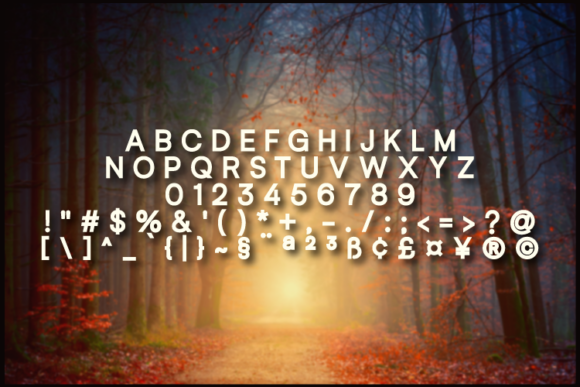
Introduction to Leonare Extra Black Font
Do you ever find yourself stuck in a creative rut, searching for the perfect font to elevate your design project? It’s a feeling we’ve all been there, staring at a blank page with a sea of options in front of us. But what if I told you that the solution is just a click away? Enter Leonare Extra Black Font, a game-changing sans serif font that’s about to revolutionize the way you approach design.
As a valuable resource for designers, Leonare Extra Black Font offers a unique blend of style and versatility. Whether you’re working on a complex design project or simply need a font to match your brand’s aesthetic, Leonare Extra Black Font has got you covered. With its clean lines, modern feel, and high-quality design, this font is perfect for creating eye-catching headlines, logos, and even working on a transparent background.
Key Features of Leonare Extra Black Font
- High-quality font designed for creative projects and design resources, perfect for adding a touch of sophistication to your work.
- This font features a transparent background, allowing for seamless integration with any design element or background.
- With its unique, bold design, Leonare Extra Black Font is ideal for headings, titles, and other text elements that require a high level of visual impact.
- The font is available in a single weight, Leonare Extra Black, with a resolution of 1024 x 1024 pixels for high-quality display.
Honest Review: Leonare Extra Black Font
As a designer, I’m always on the lookout for high-quality design resources to enhance my creative projects. Recently, I had the chance to work with the Leonare Extra Black Font, and I must say it’s been a game-changer for my design work.
- High-quality design: The Leonare Extra Black Font is incredibly sharp and detailed, making it perfect for use in designs that require a bold, attention-grabbing look.
- Transparent background: The font’s transparent background allows for seamless integration with other design elements, giving me more flexibility in my creative projects.
- Limited character set: While the font is excellent for headings and titles, it’s not as versatile for body text, which can be a limitation in some cases.
- May require customization: Depending on the specific design project, the Leonare Extra Black Font may require some tweaking to fit perfectly with the rest of the design.
Overall, I’m really impressed with the Leonare Extra Black Font. Its high-quality design, free availability, and transparent background make it an excellent addition to my design resource library. While it may have some limitations, I believe it’s a valuable asset for any designer working on a creative project.
Tips for Getting the Most Out of Leonare Extra Black Font
Common Use Cases for Leonare Extra Black Font
Leonare Extra Black Font is ideal for designing logos, business cards, and other marketing materials that require a bold, eye-catching font. It’s also a great choice for creating free download templates and design resources.